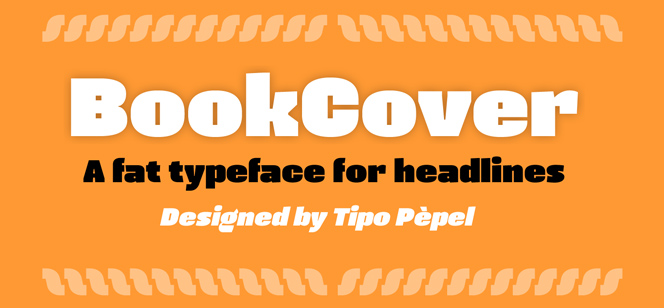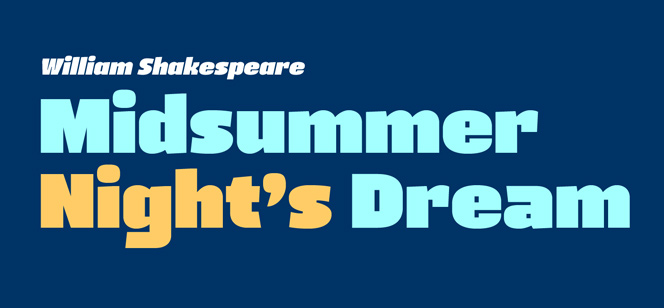
BookCover font
BookCover font by Josep Patau Bellart (Tipo Pèpel type foundry) is a contemporary Sans designed primarily for headline use. It’s perfect for attractive book covers, magazine headlines, titles, posters and other display purposes. BookCover font family consists of two members – Regular and Italic.
BookCover font family produces a strong impact thanks to its heavy, fat letters with contrasting curved outlines and internal rectangular shapes. The typeface offers an extensive character map for use in most Latin-based languages.